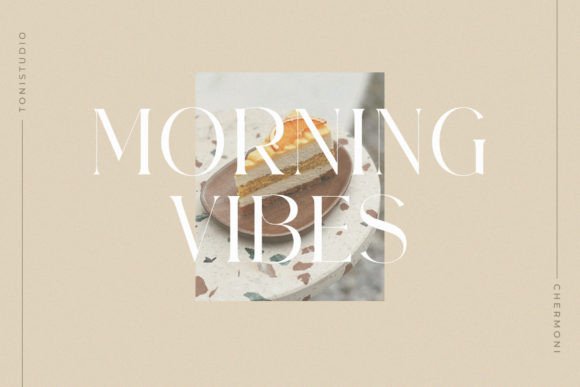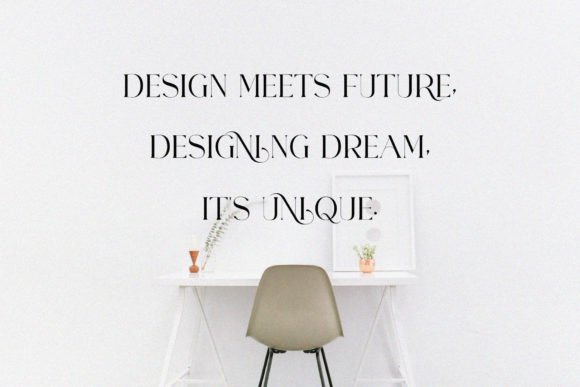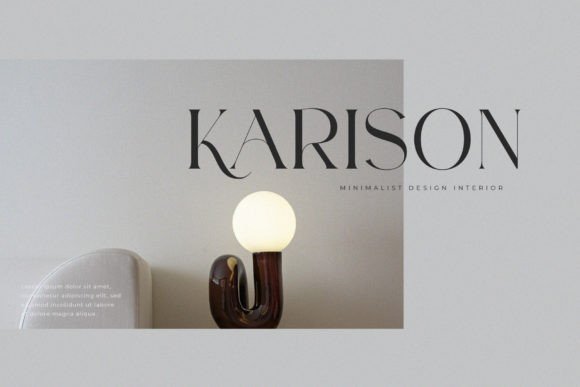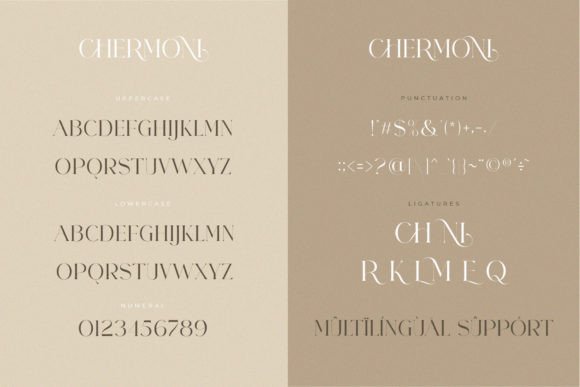
Chermoni Font
Introducing the new CHERMONI ligature serif font!!! CHERMONI offers beautiful typographical harmony for a variety of design projects. This font is perfect for elegant & luxury logos, classy editorial designs, women’s magazines, fashion brands, cosmetic brands, fashion promotions, modern advertising design, invitation cards, art quotes, home deco, book titles/covers, special events, tote bags, T-shirts, Advertisements and more.